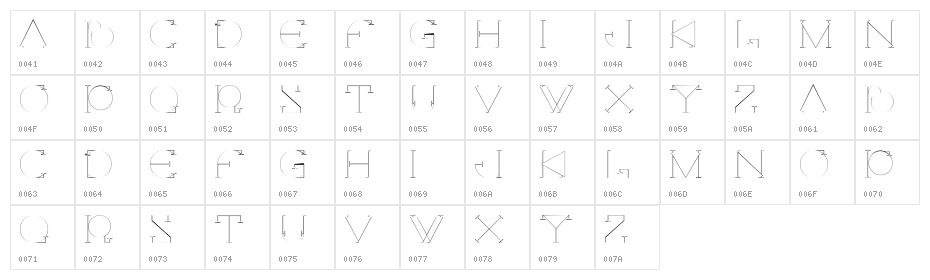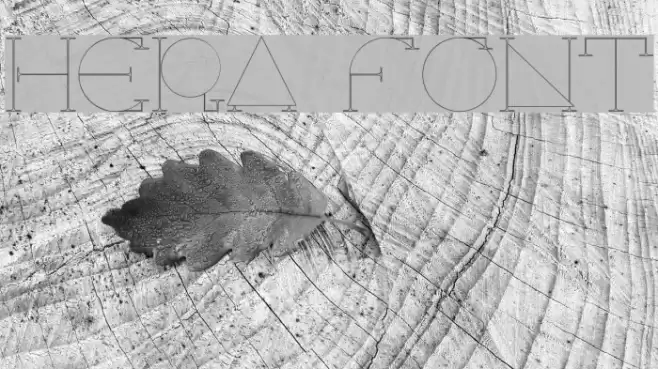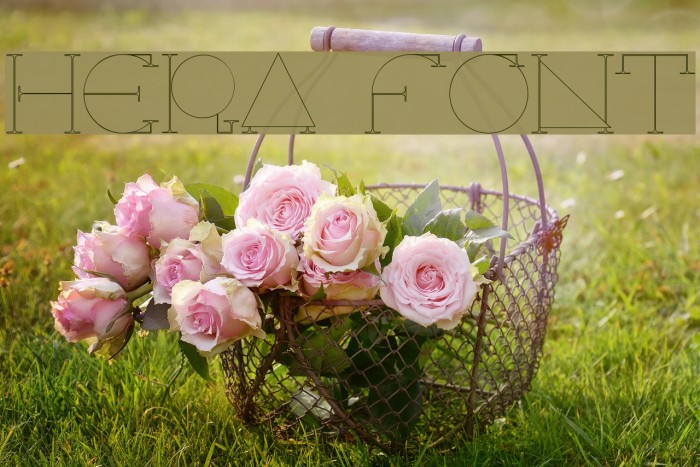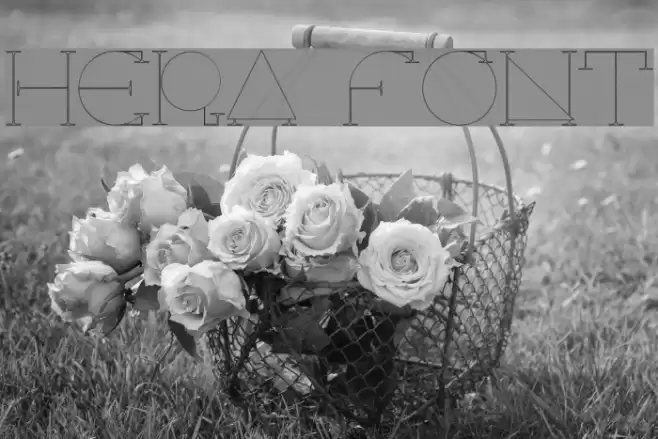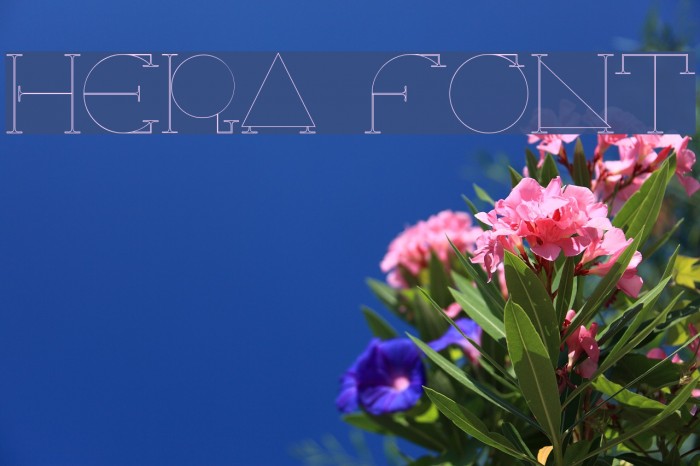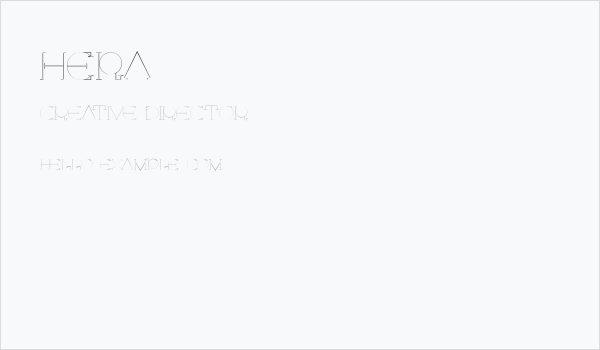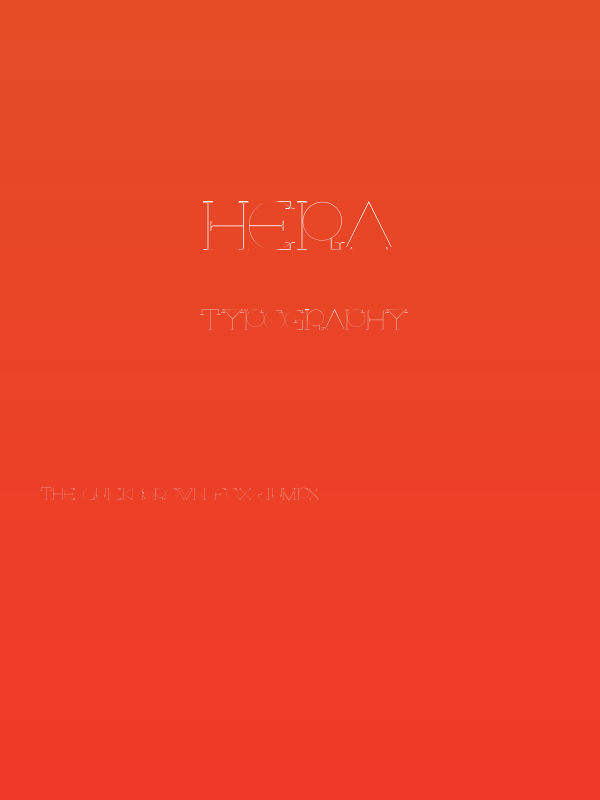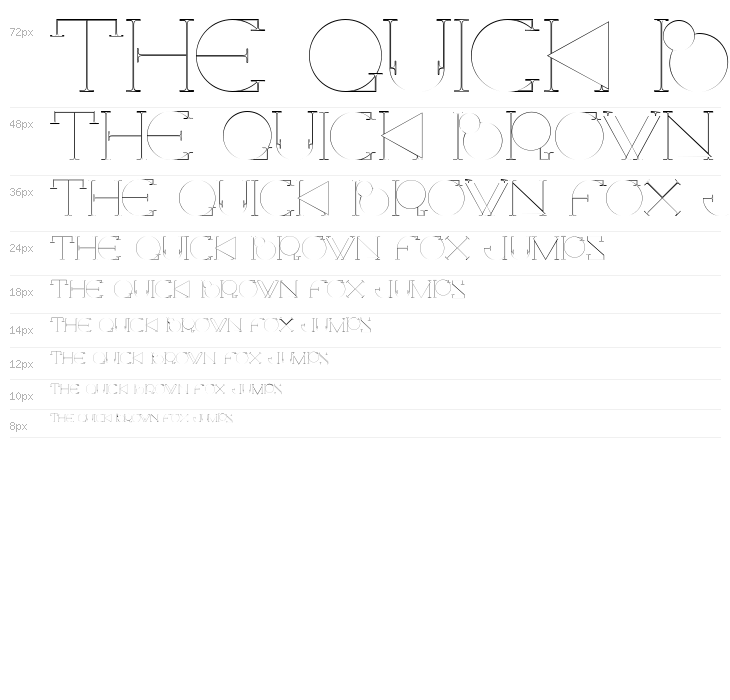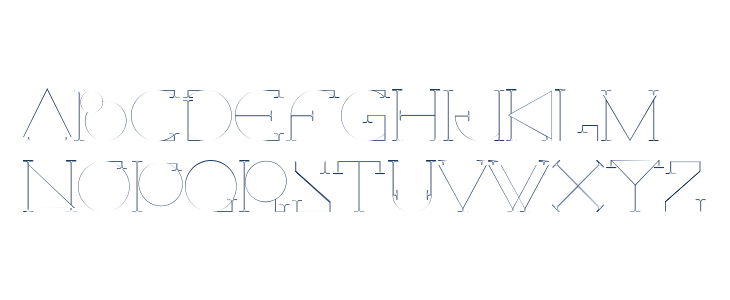
Hera Font
Hera Description
This font features a unique and modern design with geometric elements and arrow-like extensions. The characters are constructed with thin lines and sharp angles, giving it a futuristic and technical appearance. The uppercase letters are particularly striking, with each character incorporating distinct arrow motifs that add a sense of direction and movement. The overall look is clean and precise, making it suitable for projects that require a contemporary and innovative style.
| Use Case | Logos, Headlines |
| Proposed Projects | Ideal for tech branding, futuristic posters, and innovative product packaging. |